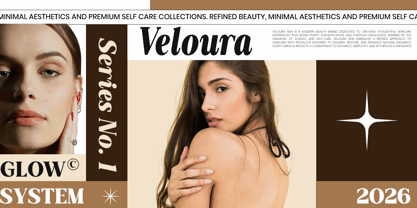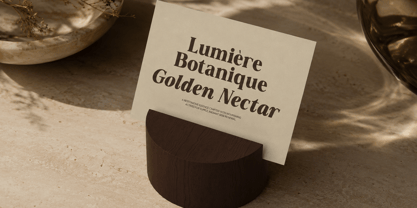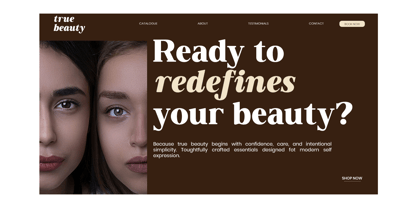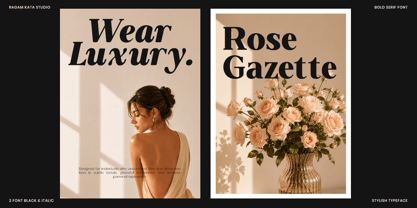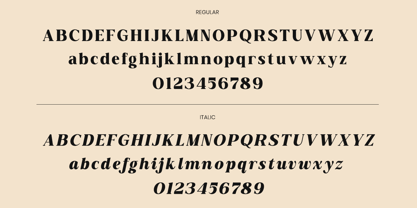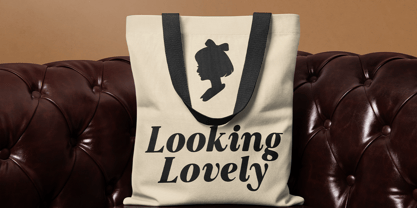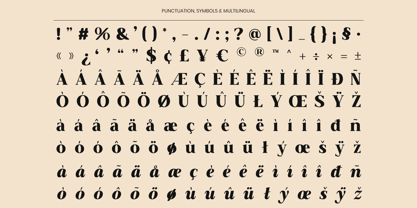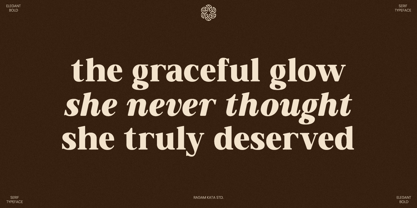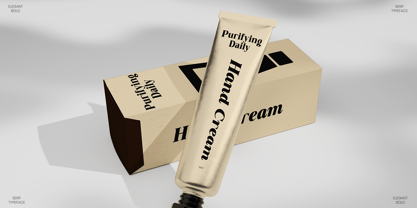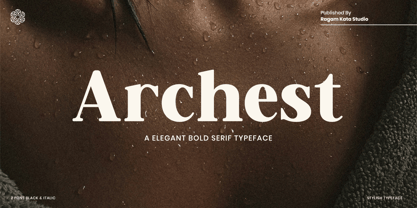
Archest
by RagamKata
The Archest Font Family was designed by Yogiswhara Dio Prakoso Riadi and published by RagamKata. Archest contains 2 styles and family package options. More about this family
Archest is an elegant bold serif typeface designed to bring sophistication, confidence, and timeless beauty into every creative project. Combining strong serif structures with refined curves, this font delivers a luxurious visual presence that feels both classic and contemporary. Its distinctive letterforms create a memorable identity, making it perfect for brands that want to stand out with elegance and authority.
Whether you're designing fashion editorials, luxury branding, cosmetic packaging, high-end logos, wedding stationery, magazine headlines, or premium advertising campaigns, Archest provides the versatility and visual impact needed to elevate your work. The bold weight ensures excellent readability while maintaining an upscale and stylish aesthetic.
Crafted for designers, entrepreneurs, and creative professionals, Archest offers a perfect balance between modern luxury and classic serif charm. Its elegant details make it ideal for projects that demand prestige, refinement, and a strong brand presence across both print and digital media.
Designers: Yogiswhara Dio Prakoso Riadi
Foundry: RagamKata